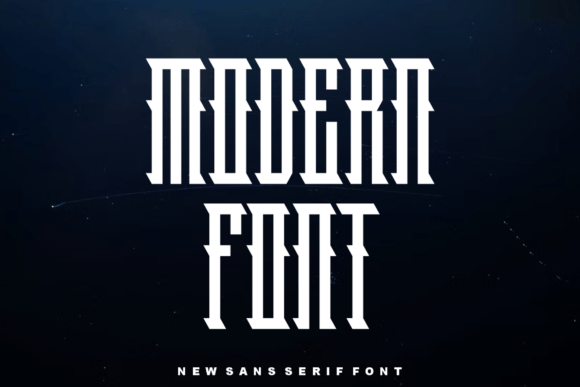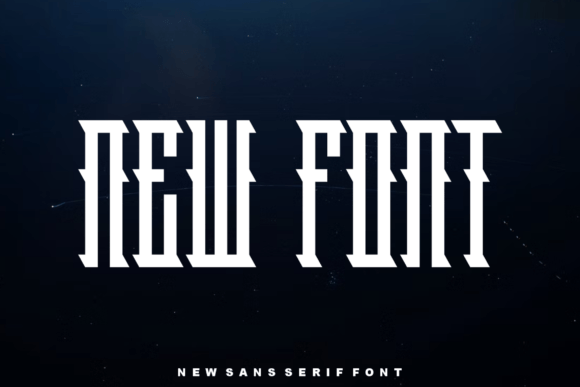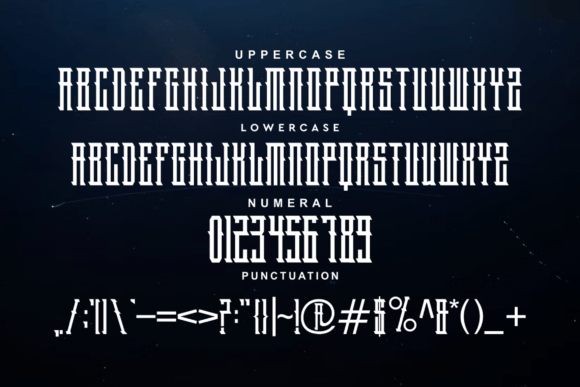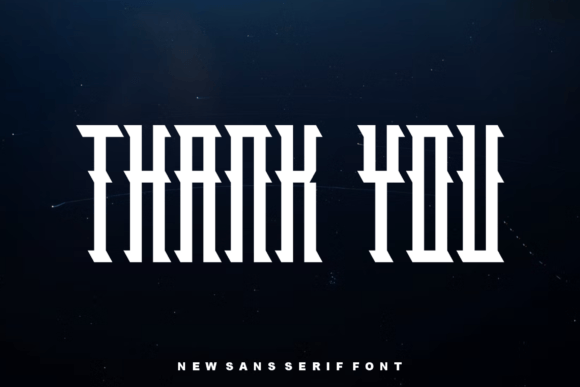
Introduction to Megazink Font
Megazink is a bold and authentic blackletter font.
The font is suitable for any branding project like logo, t-shirt printing, export, and many more It looks outstanding in a wide range of contexts.